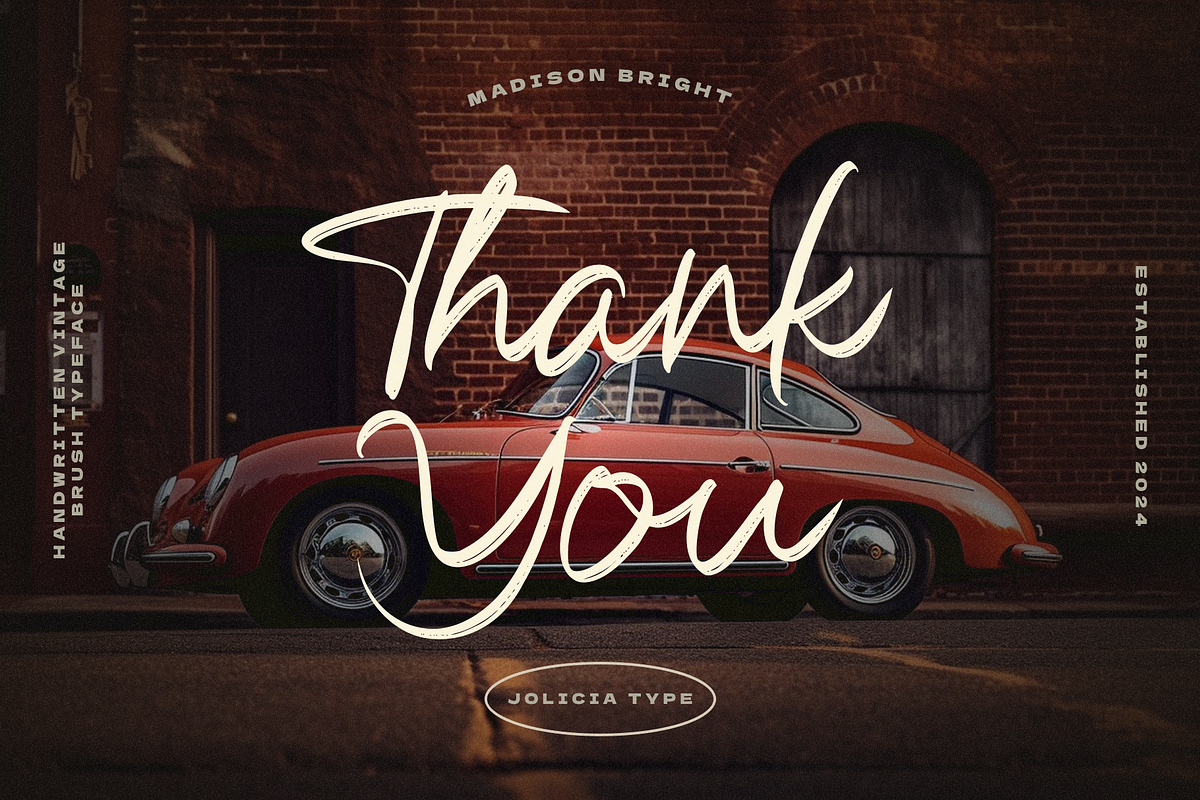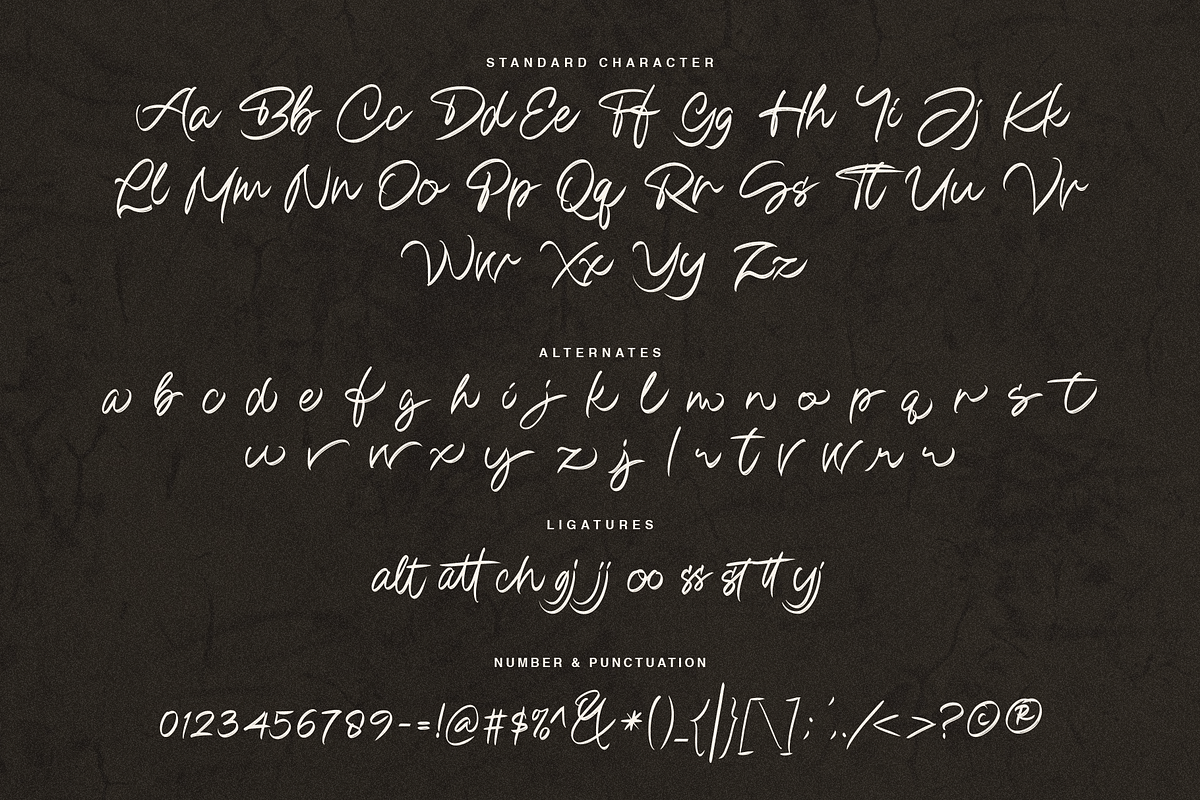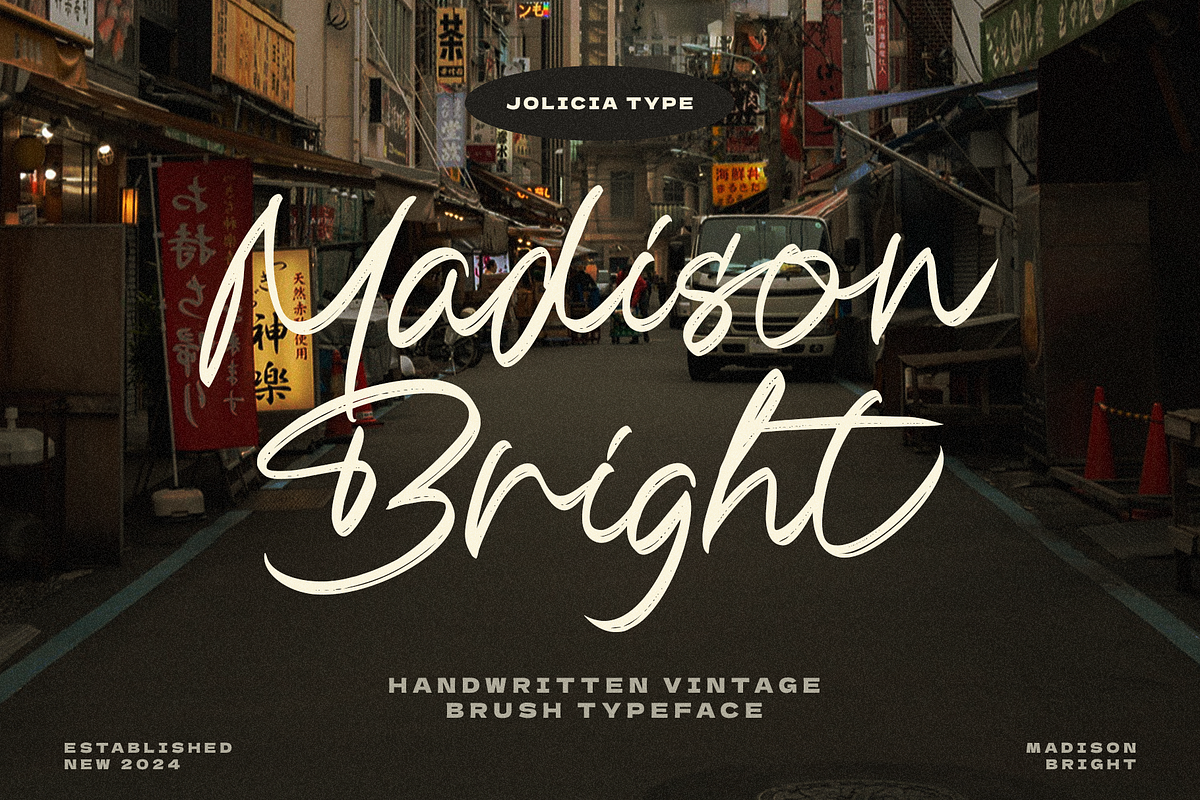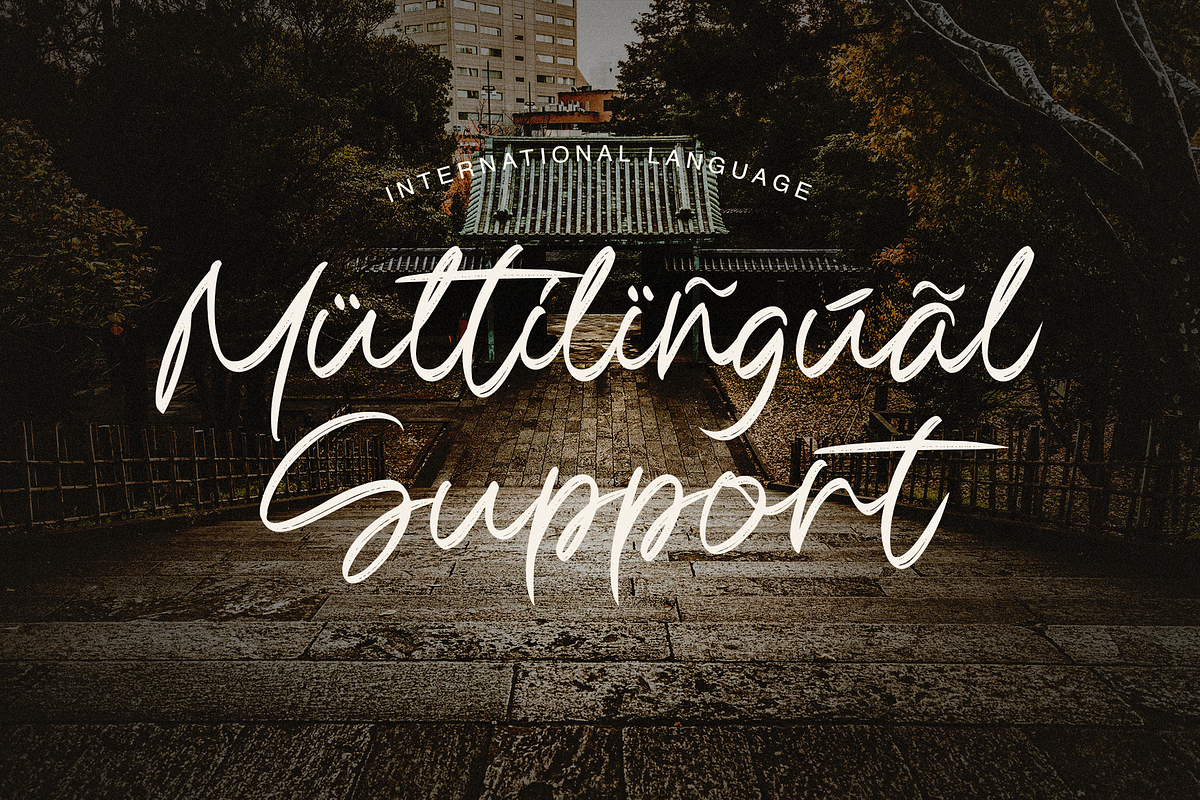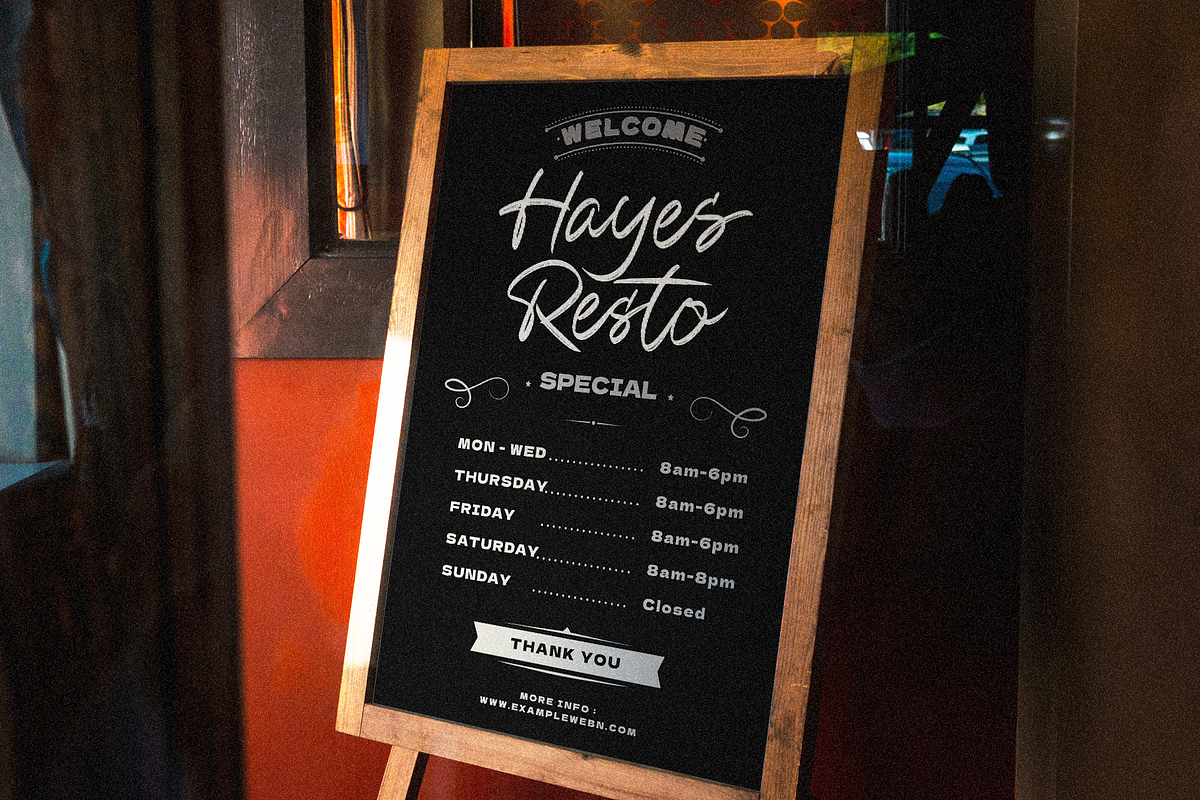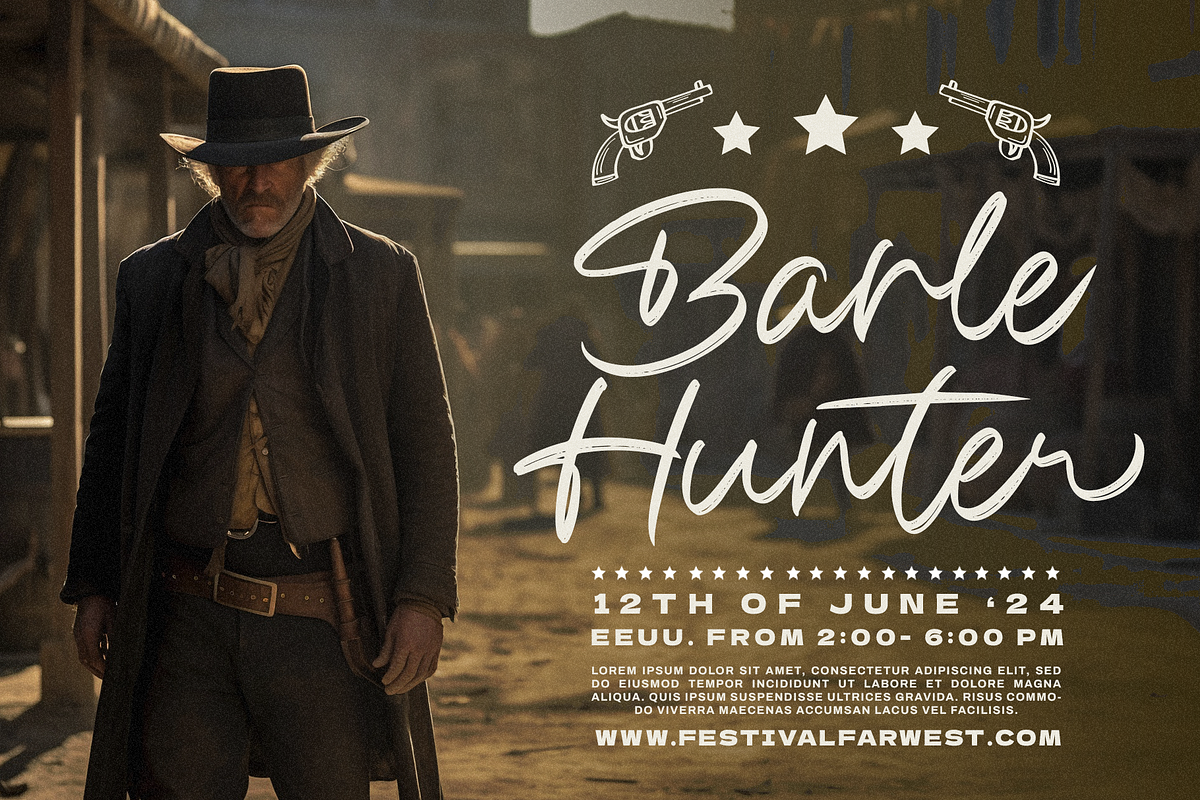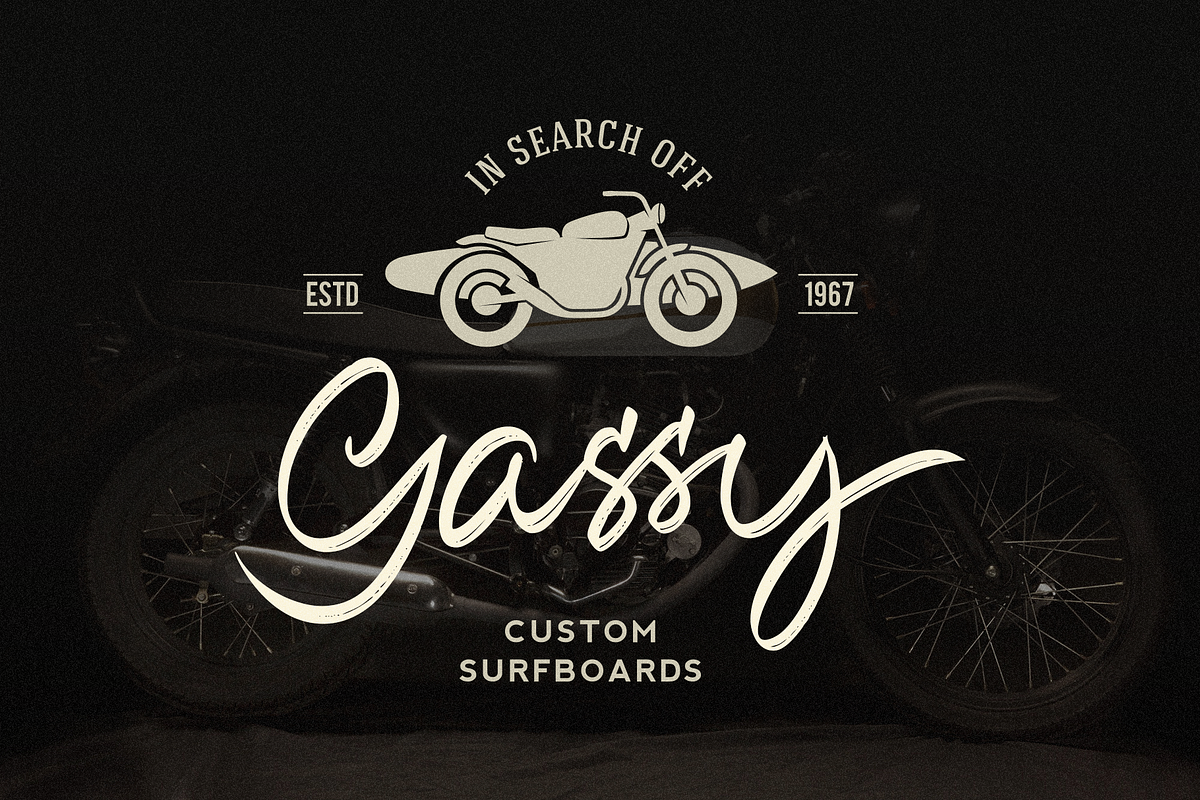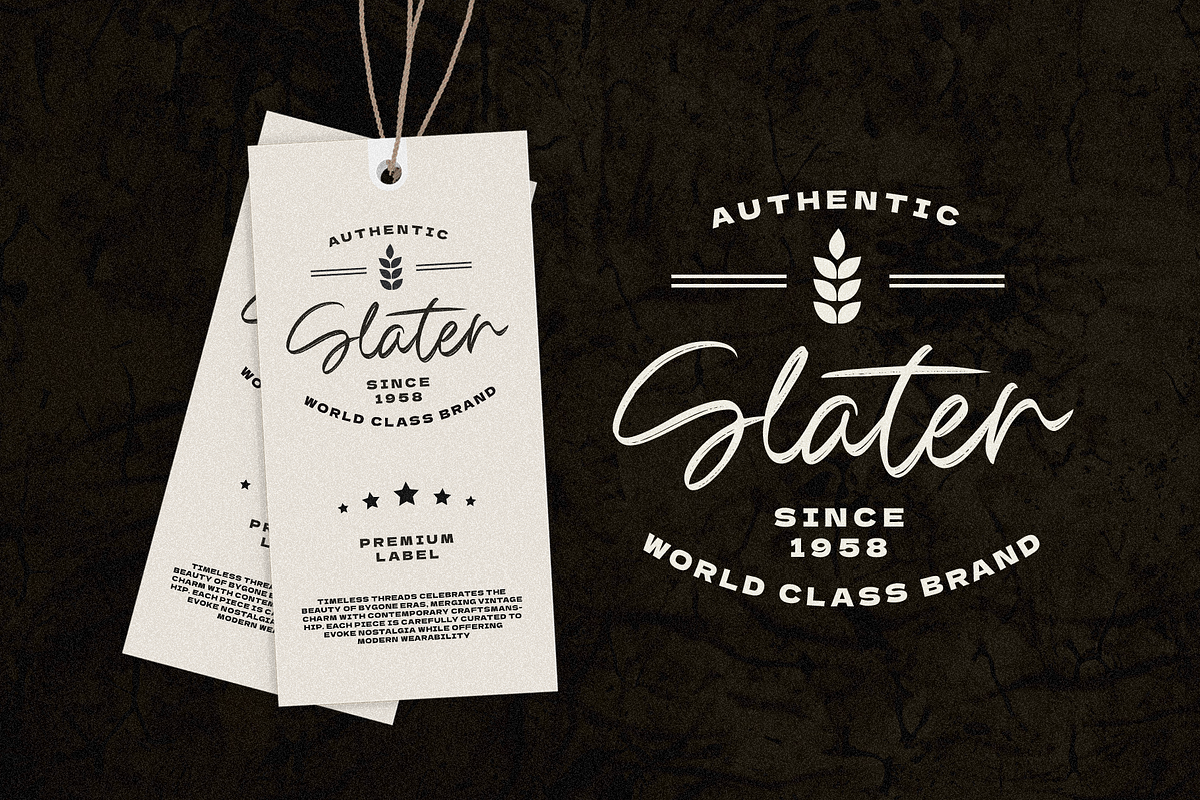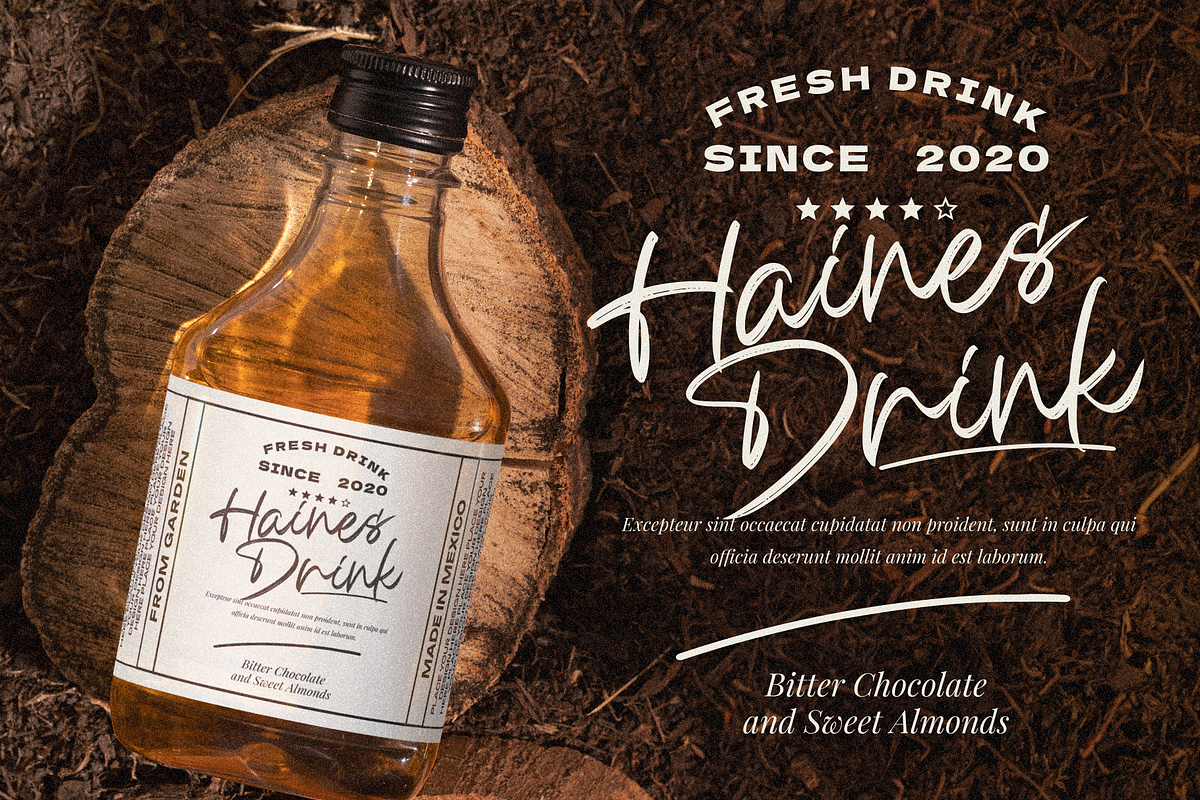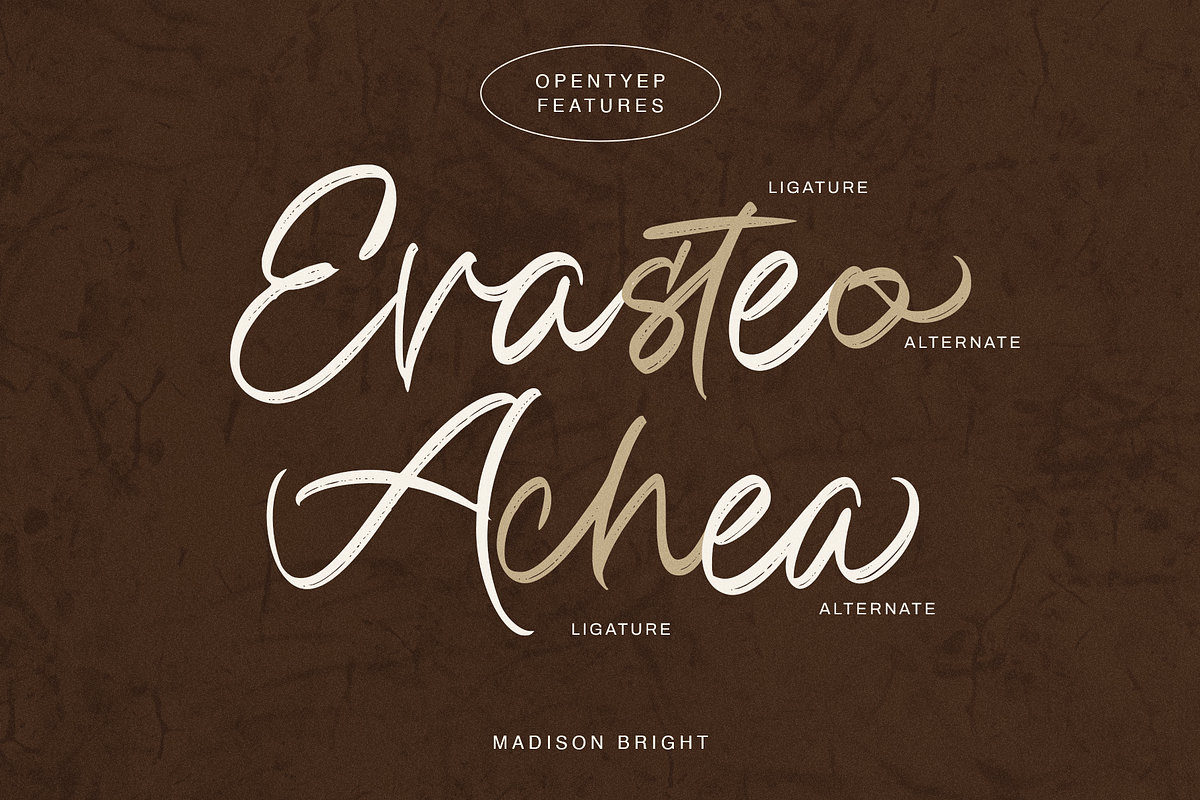
Madison Bright | Handwritten Vintage
Madison Bright is a charming handwritten font with a touch of vintage brush aesthetics. Its fluid strokes and natural flow evoke a sense of nostalgia, making it perfect for creating designs with a personal, handcrafted feel. Whether you’re working on branding, packaging, posters, or social media graphics, Madison Bright adds warmth and authenticity to your projects.
This versatile font shines in various contexts, from elegant wedding invitations to retro-themed artworks. Its textured brush style captures the essence of handwritten typography, giving each character a unique and organic vibe.